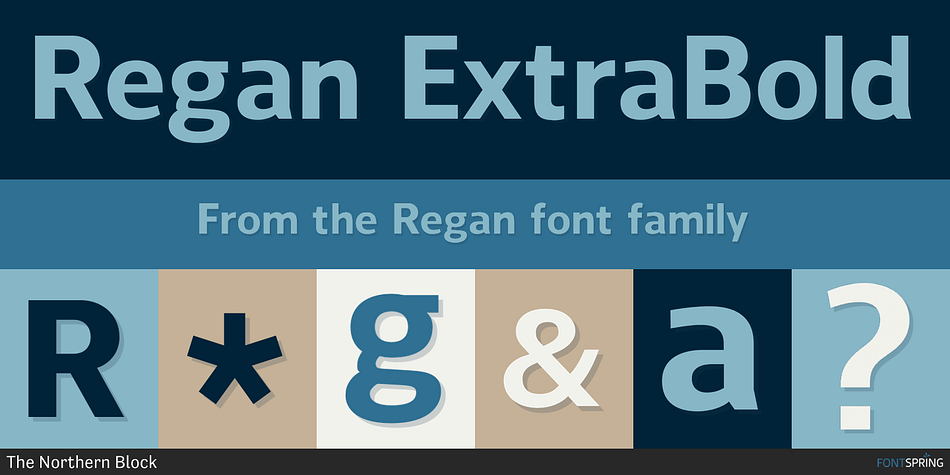
Regan ExtraBold
Regan is a sans serif font family. This typeface has twenty styles and was published by The Northern Block.
A finely crafted sans serif typeface with an uncomplicated appearance.
A finely crafted sans serif typeface with an uncomplicated appearance. Soft curves are mixed with minimal angles to create a readable font ideally suited for identity, editorial and online uses. Details include 10 weights with italics, 540 characters, 5 variations of numerals, small caps, stylistic alternatives, manually edited kerning and Opentype features.